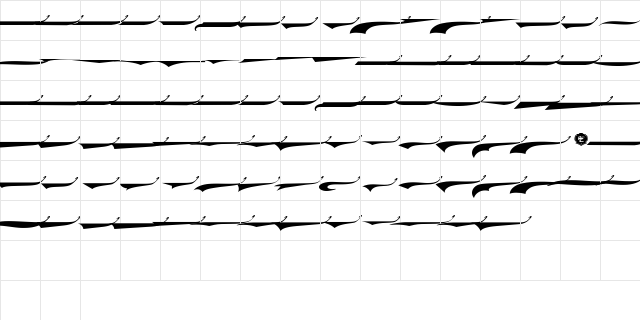
Pilsner Swashes Lhf Regular
Design Context for Pilsner Swashes Lhf Typeface
Pilsner Swashes Lhf brings a calligraphic fluidity to the page — its connecting strokes and expressive curves give it an unmistakably human quality.